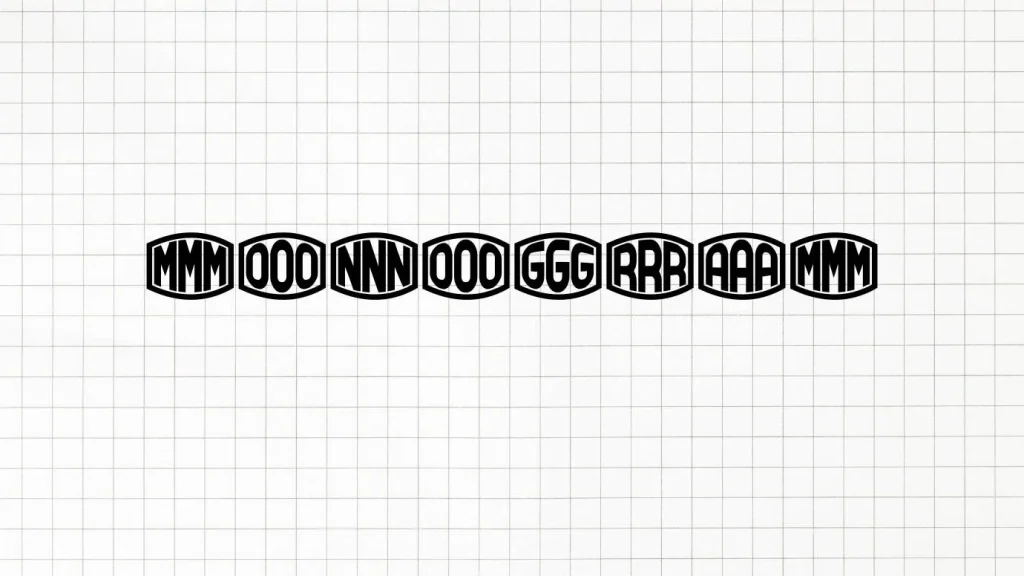
Let’s introduce an amazing font that belongs to the fancy font named Monogram Font. There are 106 characters in this typeface, which has 78 glyphs, including alphabets, digits, and special characters. You can import this style in a CSS file to create fun designs. This typeface has great readability.
However, with the passage of time, font popularity increased and many designers have used this style to design their projects. Also, the font generator tool gives you the opportunity to create stunning designs to attract the viewer.
There are many applications for this interesting typeface that can be used. The typeface will primarily provide any design with a playful and pleasurable feel. Using this typeface to create designs that are enjoyable for all users. While using this style you can create art book designs and logo designs.
This typeface cannot be used in every project thus the combination will depend on the needs. This typeface looks fantastic when applied to printing projects for kids because it has a fascinating design. If you’re looking for a font with identical style and characters, consider using the cagoule font as it perfectly matches the one mentioned.
The disadvantage of this design is that when used in small-size text, the design will not be visible. Use this typeface to produce stunning designs without putting in a lot of effort, if you want to start generating good t-shirt designs use this style.
While using this style you can create art book designs and logo designs you can make your website design more beautiful with this design.